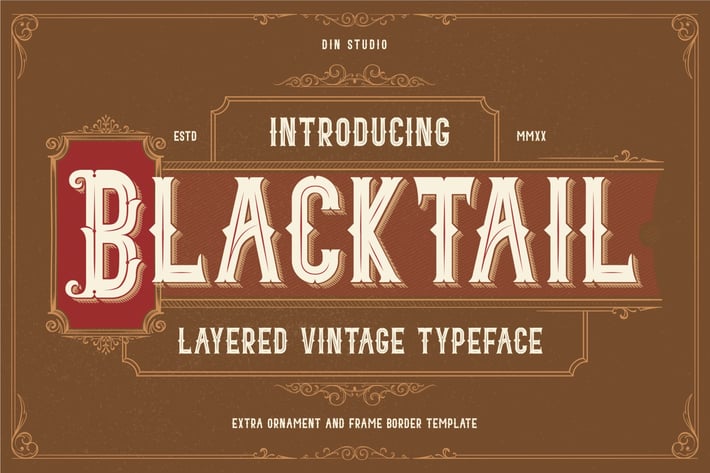
Blacktail - Layered Vintage Font
Din-Studio
The font is suitable for any design project, especially for vintage vibes.
- Blacktail Regular
- Blacktail Shadow
- Blacktail Drop shadow
- Blacktail Sword
- Character Set A-Z